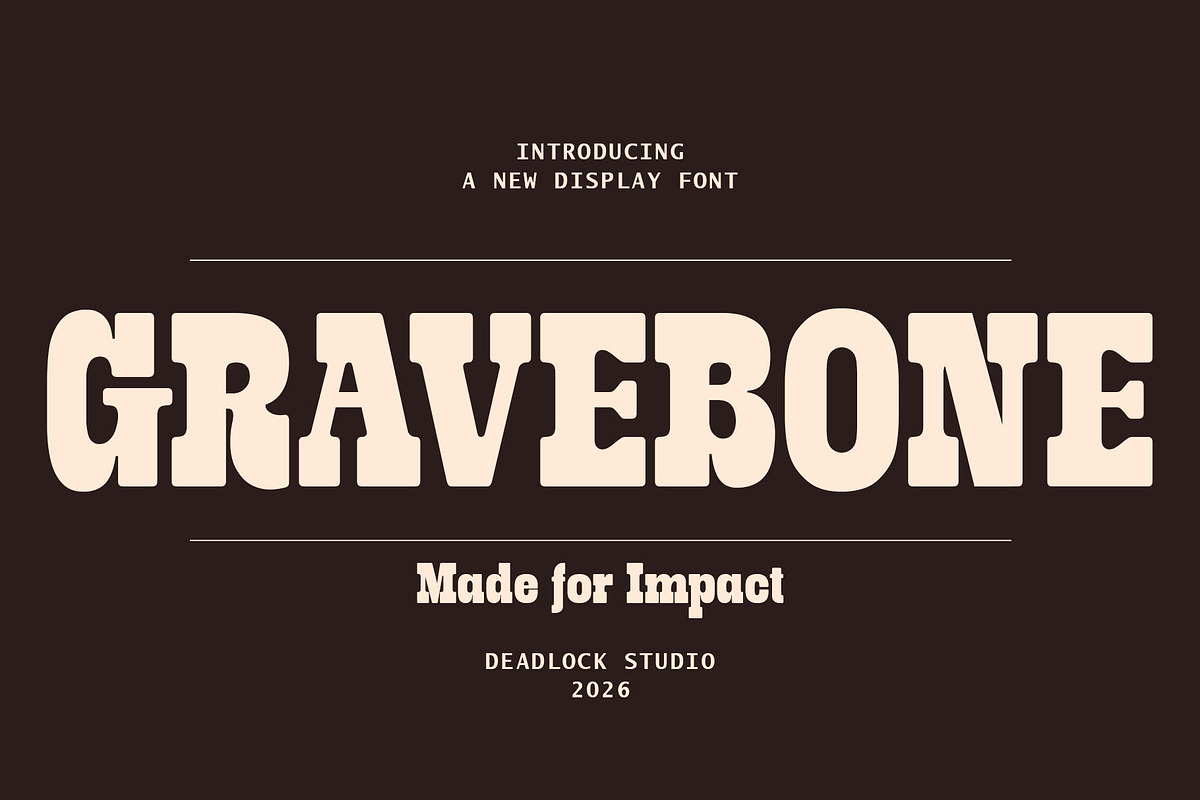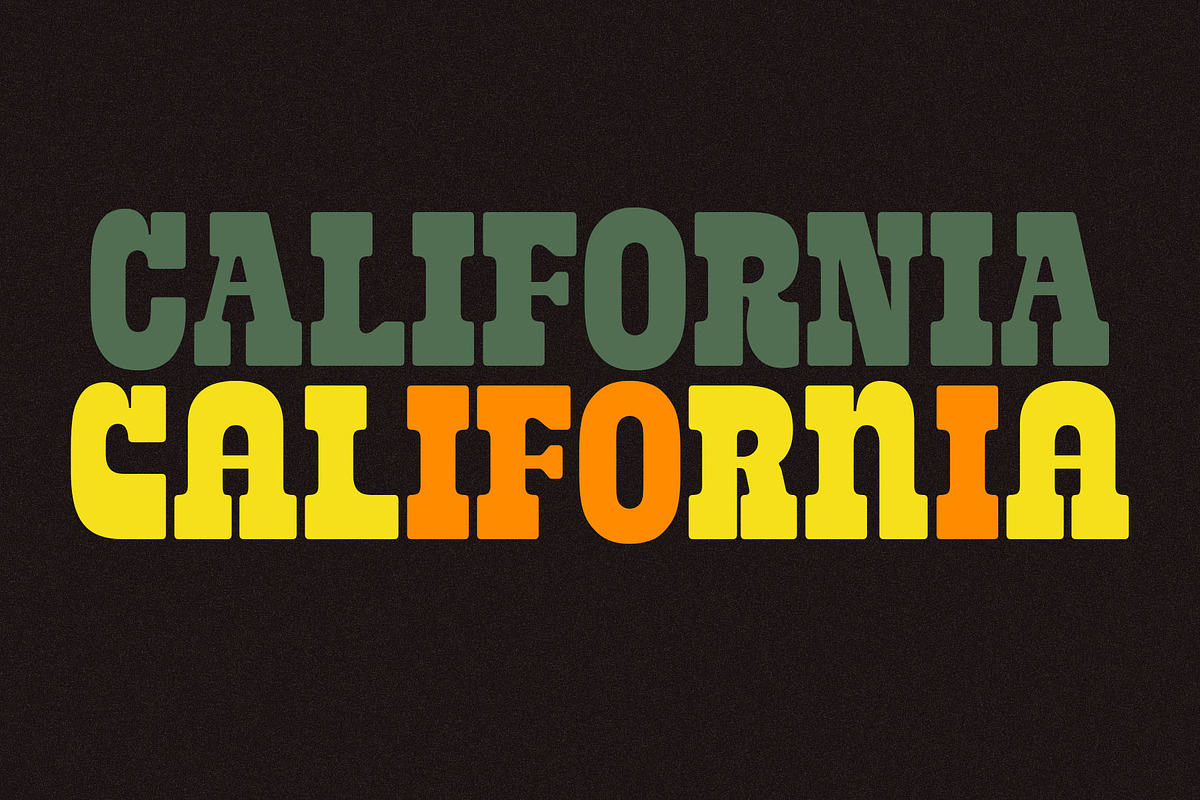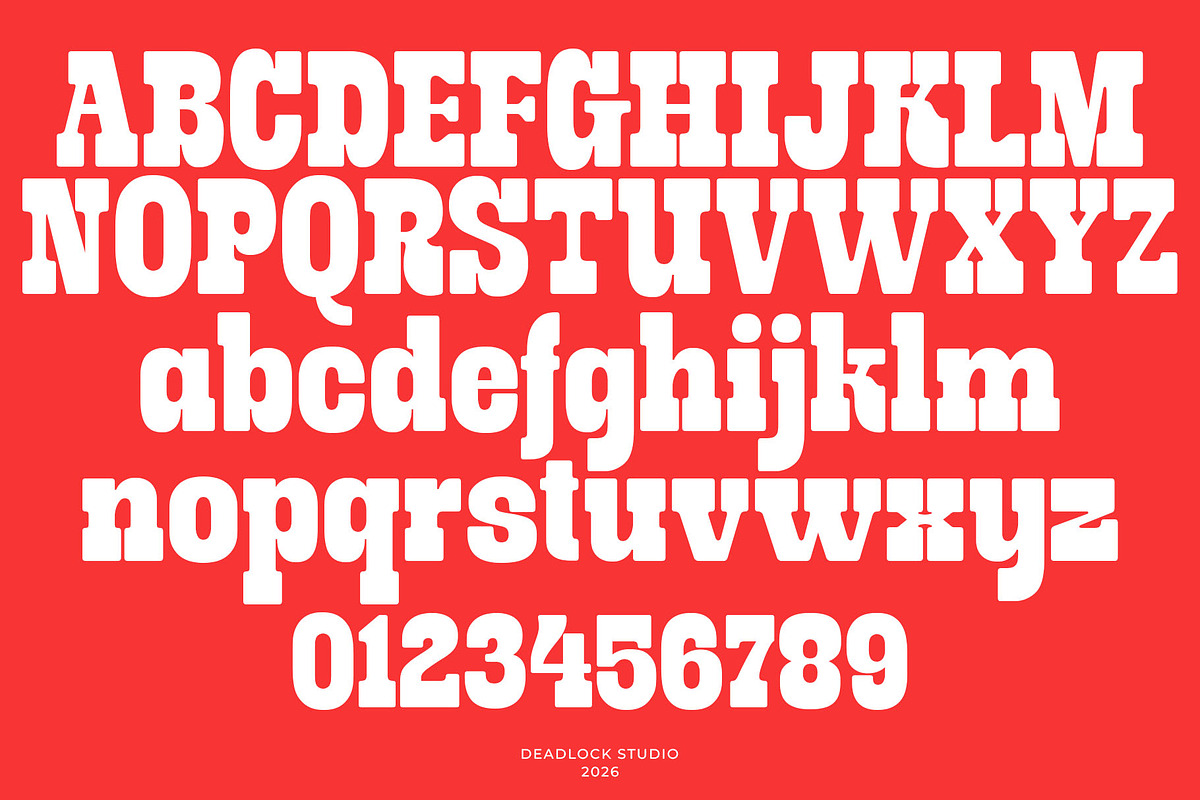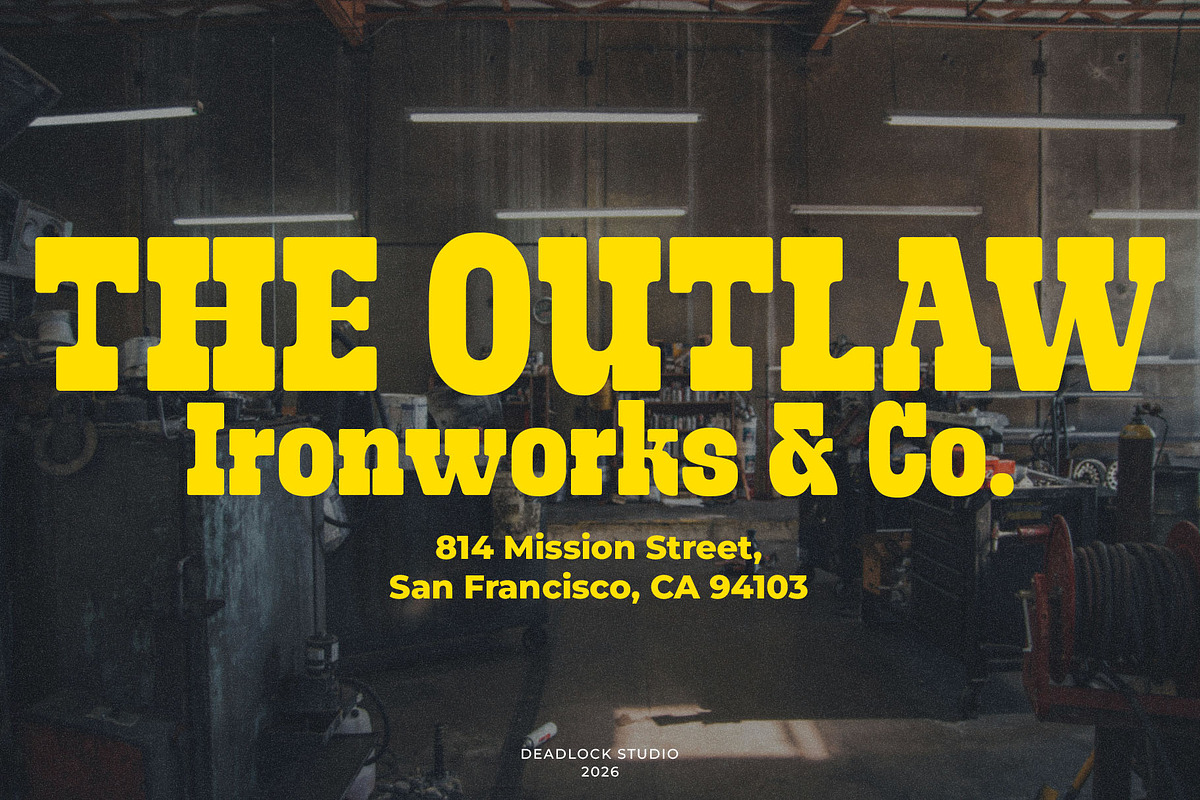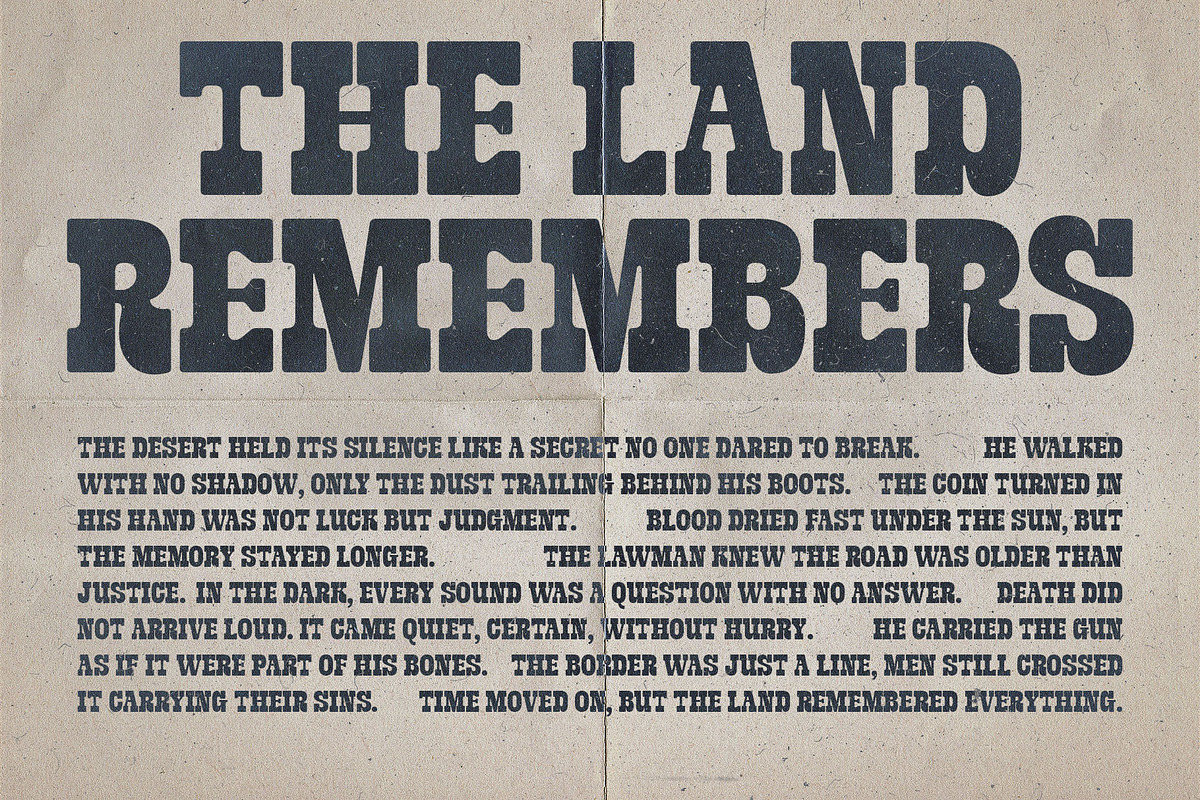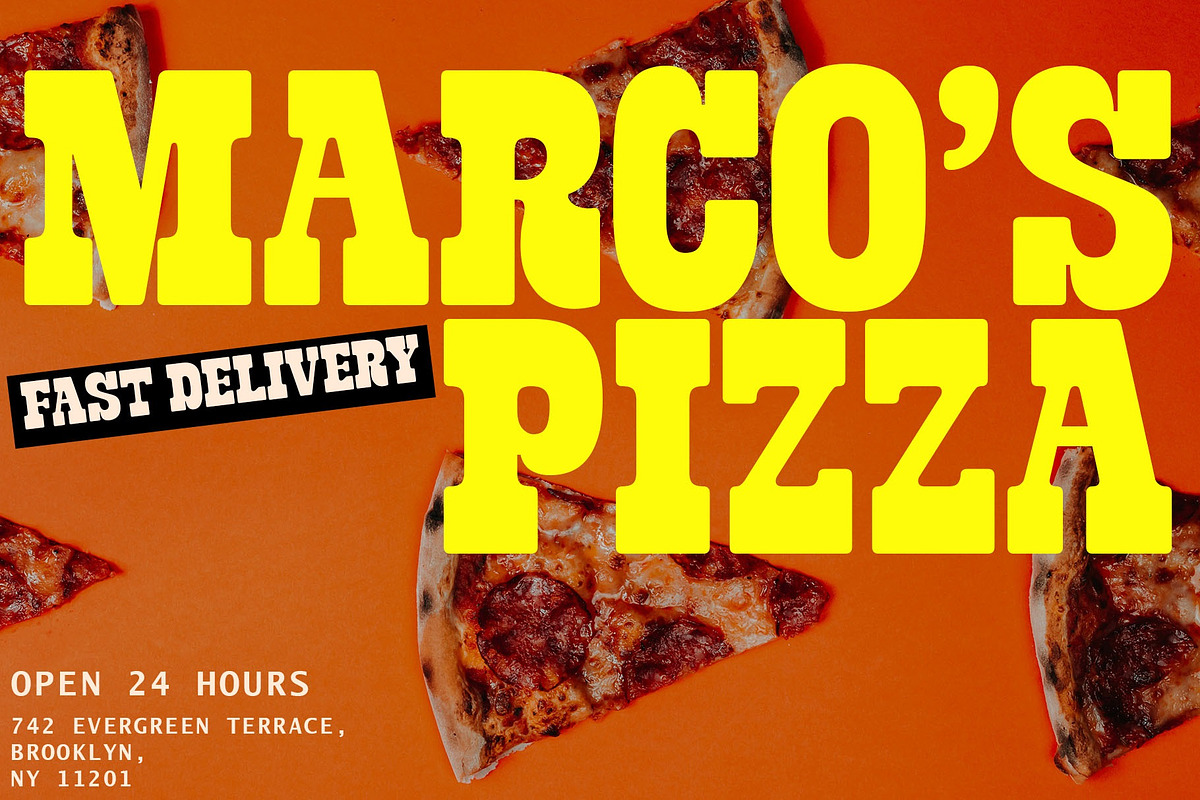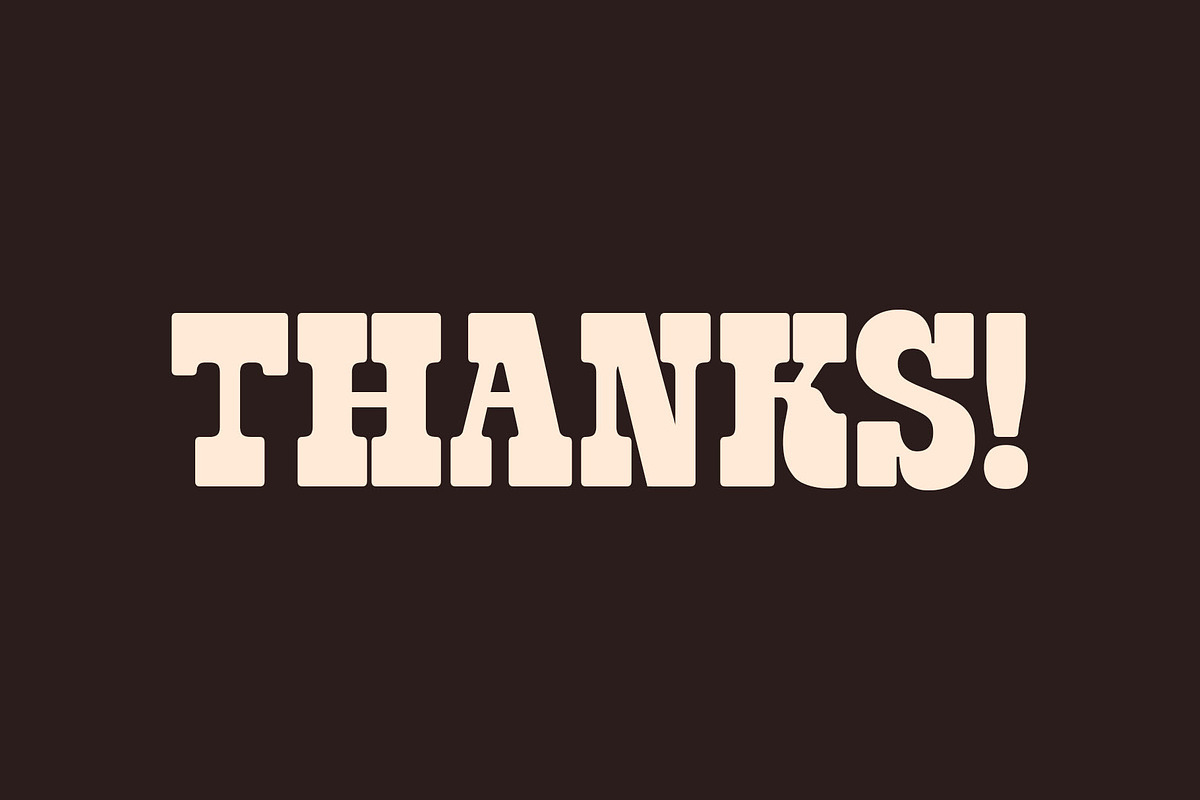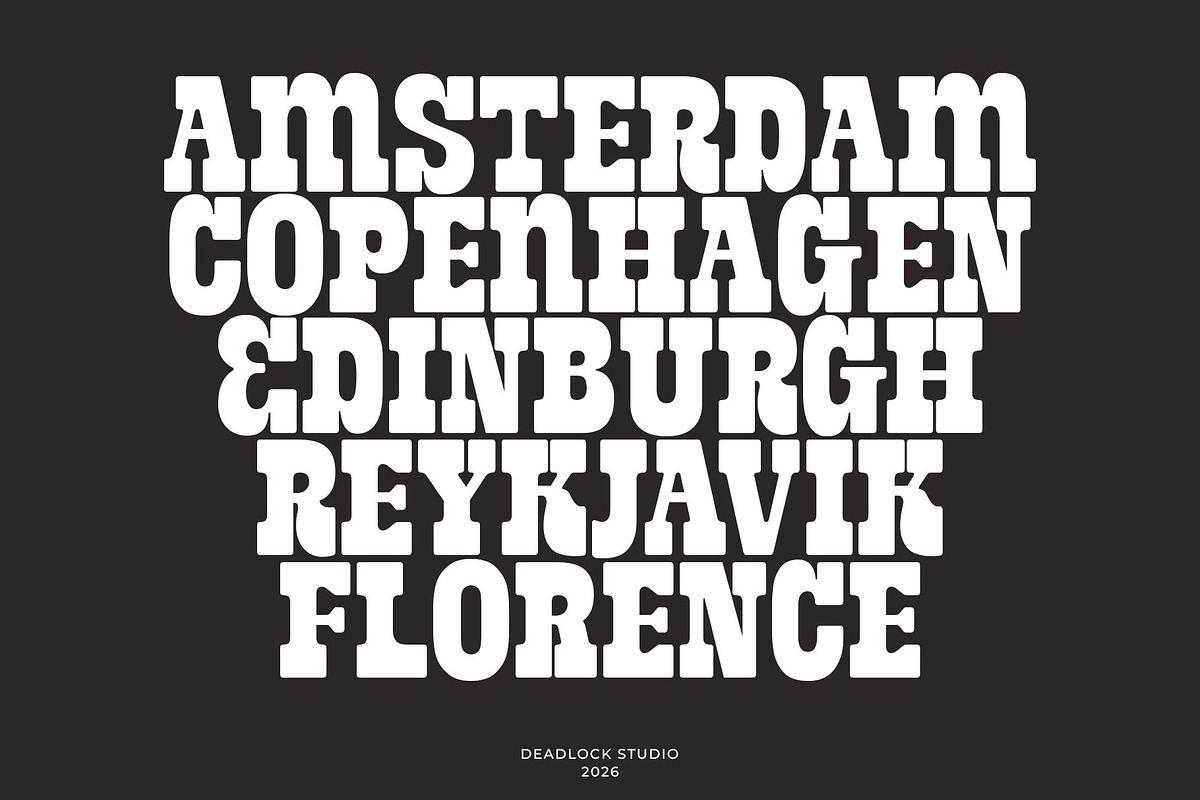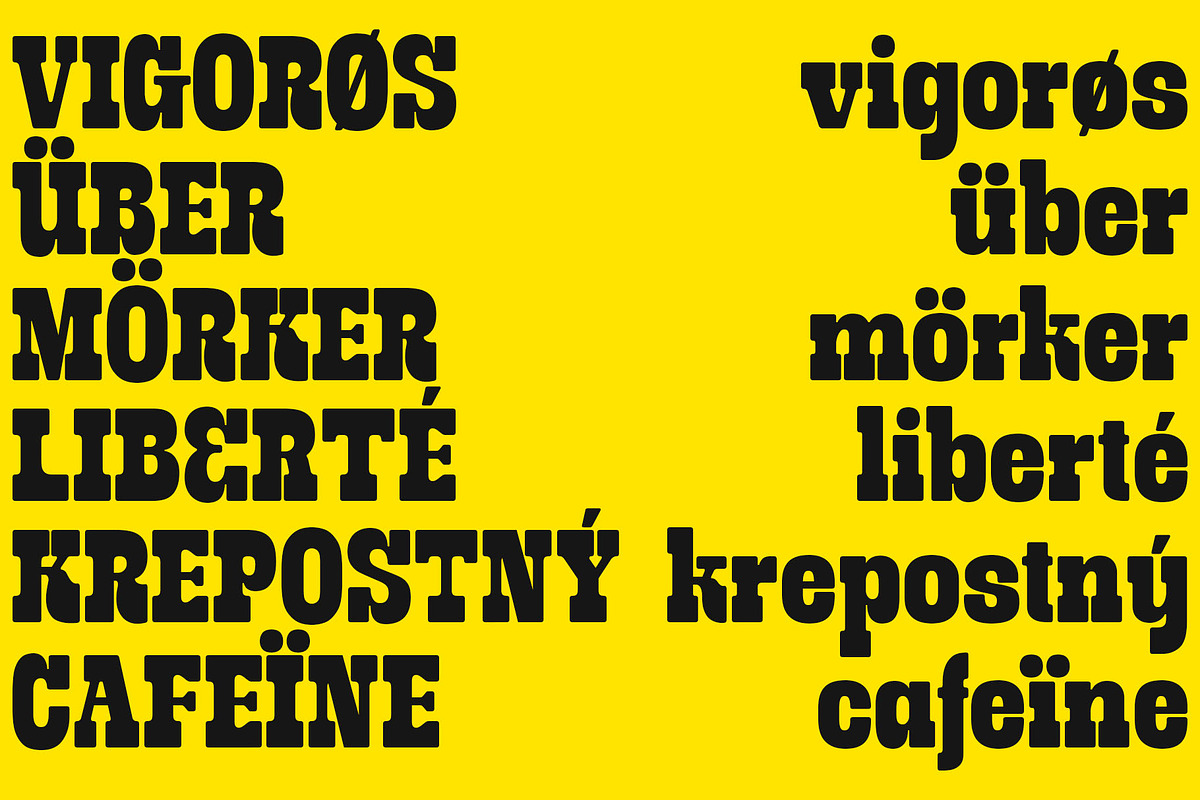
Gravebone
Gravebone is a powerhouse Slab Serif designed for those who need their message to stand like a monument. With its thick, blocky serifs and industrial inspired structure, it strikes the perfect balance between vintage craftsmanship and modern grit.
Whether you're branding a rustic pizzeria, designing a high-impact gig poster, or building a bold identity for outdoor gear, Gravebone delivers an unmistakable presence that feels both grounded and rebellious.
Rock-Solid Anatomy: Thick, slab-heavy terminals for maximum readability and impact.
Authentic Character: A "hand-pressed" feel that suits vintage, industrial, and rustic aesthetics.
Global Language Support: Fully equipped with multilingual characters (including glyphs like ø, ü, mörker, liberté).
Versatile Formatting: From high-end print to fast-loading web interfaces.
Best Used For: Headlines, Branding, Signage, Menu Designs, Packaging, and Large-Scale Displays.